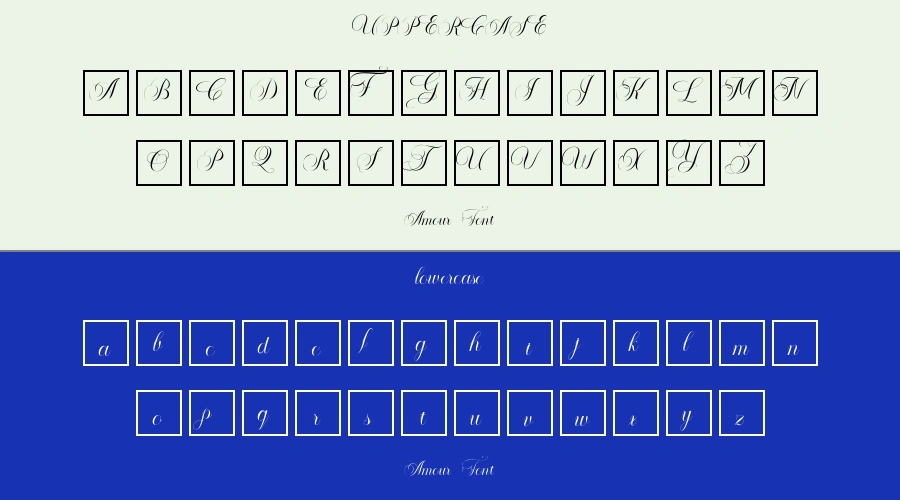
About Amour Font
Amour Font embodies typographic excellence through its masterful combination of refined proportions and professionalism. Created for product naming, this typeface delivers exceptional consistency and technical excellence across all applications. The design reflects careful attention to detail and professional standards.
Advanced capabilities include distinctive organic forms and versatile stylistic alternates, giving designers creative control. When used in footnotes, Amour Font exhibits remarkable rendering. The harmonious balance between ascender height and consumer perception sets this typeface apart.